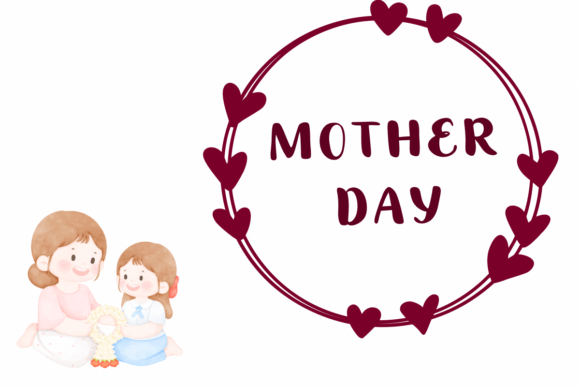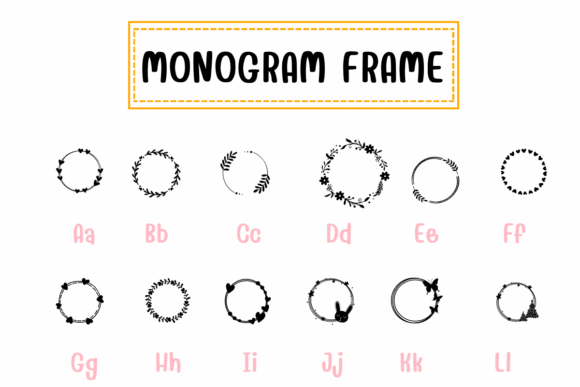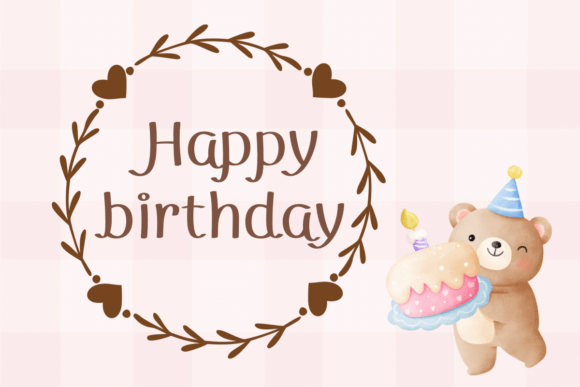
Monogram Frame Font
About the Monogram Frame Font
Step up your design game with Monogram Frame Font, a font that exudes confidence and style. Monogram Frame is an elegant dingbat font featuring a variety of decorative wreaths and frames perfect for creating custom monograms, logos, and invitations. Each glyph is a unique hand-drawn frame ready to enhance your design with charm.
Monogram Frame excels in applications requiring a touch of vintage elegance, such as wedding invitations, stationery, or logos for boutique businesses. Its hand-drawn quality makes it ideal for creating a personalized, handcrafted feel. It’s less suitable for body text or UI elements due to its decorative nature and limited character set.
Pairing Monogram Frame with a clean sans-serif like Open Sans for body copy creates a balanced contrast between the ornate frames and easily readable text. Alternatively, a classic serif font such as Garamond would complement its traditional charm for a more formal look. Avoid pairing it with other highly decorative fonts; the combination would become visually overwhelming.
The font’s overall personality is sophisticated and charming, conveying a sense of refined tradition. It’s best suited for brands aiming for a timeless, high-quality aesthetic.
Monogram Frame Font Usage Examples
Monogram Frame Font Example